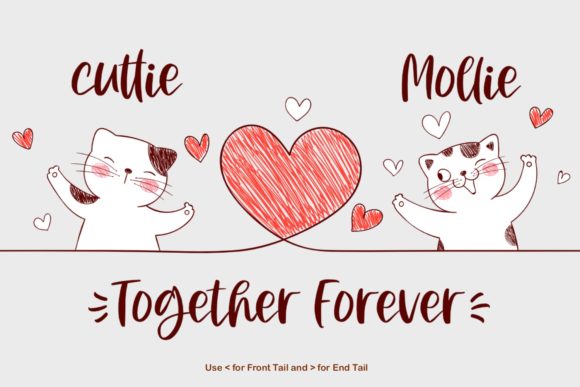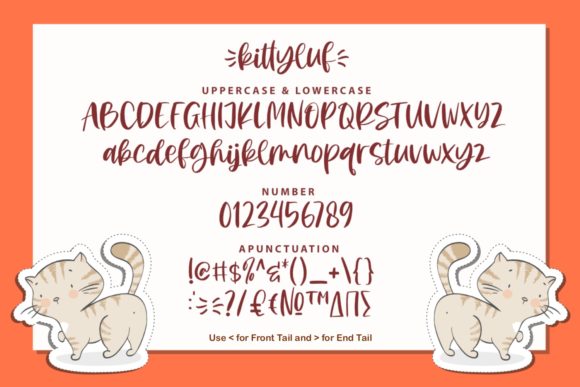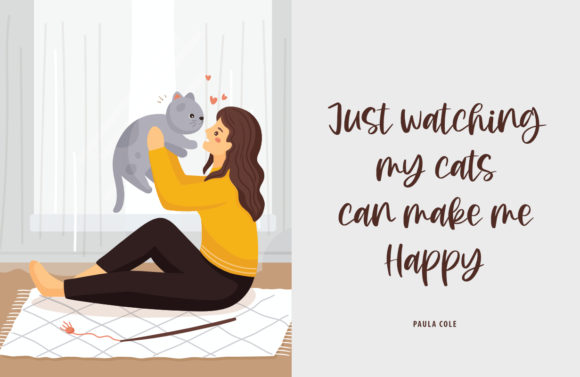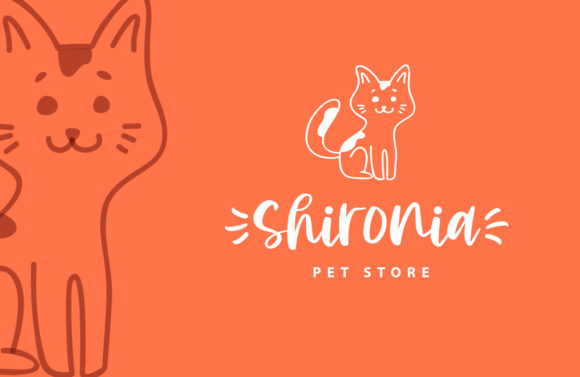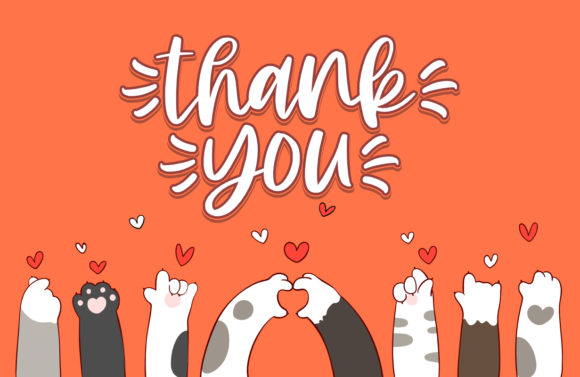
Introduction to Kittyuf Font
As a designer, you know that finding the perfect font can make or break a creative project. Remember that one time you were working on a children’s activity book, and you just couldn’t find the right font to capture the playful essence of the design? That’s where the Kittyuf Font comes in – a delightful, colorful handwritten font that brings any design to life!
With its chunky lettered design and transparent background, Kittyuf Font is the perfect addition to any design resource. Whether you’re working on a school project or a commercial design, this free download is sure to elevate your creative project to the next level. And the best part? It’s a high-quality font that’s perfect for designers who want to add a touch of authenticity to their work.
Key Features of Kittyuf Font
- High-quality design resource for creative projects, ideal for digital art and graphics.
- Features a transparent background, allowing for easy customization and blending with other elements.
- Includes multiple font styles and weights, providing versatility for various design applications.
- Designed with a high resolution of 300 DPI, ensuring crisp and clear text display.
- Can be easily resized without compromising on quality, making it suitable for use in various design contexts.
Honest Review: Kittyuf Font
I recently stumbled upon the Kittyuf Font while searching for a unique design resource to elevate my creative project. I was excited to give it a try, and here’s my honest review.
What works well: ✨ The Kittyuf Font is a high-quality font that’s perfect for adding a touch of whimsy to your designs. The transparent background makes it easy to layer with other graphics, and the free download option is a huge plus. I also appreciate the variety of styles and weights available, which gives me plenty of options for my project.
- Variety of styles and weights
Limitations: ⚠️ While the Kittyuf Font is a great resource, I did notice that it can be a bit challenging to read in smaller sizes. Additionally, some of the styles may not be suitable for professional or formal projects, so be sure to use your discretion.
Overall, I’m really impressed with the Kittyuf Font, and I would definitely recommend it to designers looking for a unique and creative solution. With a little practice, you can achieve amazing results with this font.
Kittyuf Font
The Kittyuf Font is a unique design resource ideal for creative projects requiring a touch of elegance and sophistication. This font features a transparent background, making it versatile for various applications.
Getting the Most Out of Kittyuf Font
To get the most out of the Kittyuf Font, use it for creative projects that require a high-quality, elegant font. Experiment with different font sizes, colors, and combinations to achieve the desired effect.
The Kittyuf Font is ideal for:
- Graphics and illustrations
Q: Is the Kittyuf Font suitable for use in digital design projects?
Yes, the Kittyuf Font is optimized for use in digital design projects, including websites, mobile apps, and social media graphics. The font’s transparent background version allows for easy use in designs with complex backgrounds and compositions.